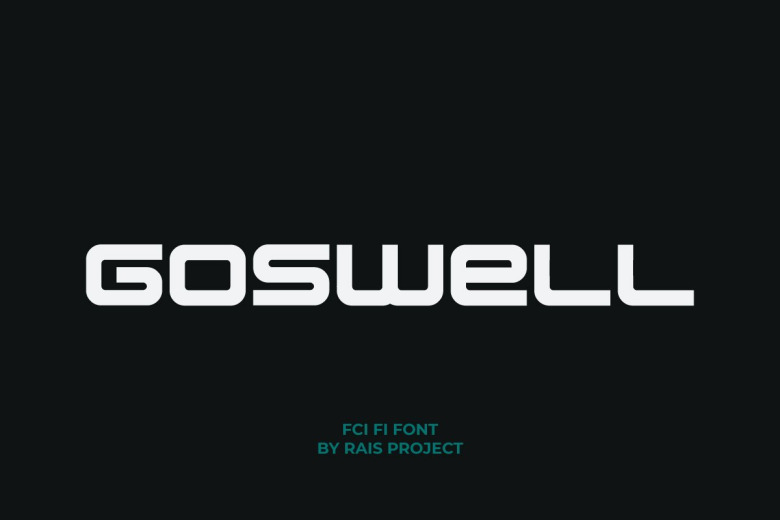
Goswell Font
Goswell Font is designed by RaisProject team in Indonesia. The font is great for any your projects including : brandings, advertising, magazine, signage, invitation, stationery, social media posts, label, or and any projects that need unique minimal style. The industries for this font is Fintech, Startup, Automotive, Apps, Cosmetic, Travel, Technology, Game, Magazine, Music, Sports etc